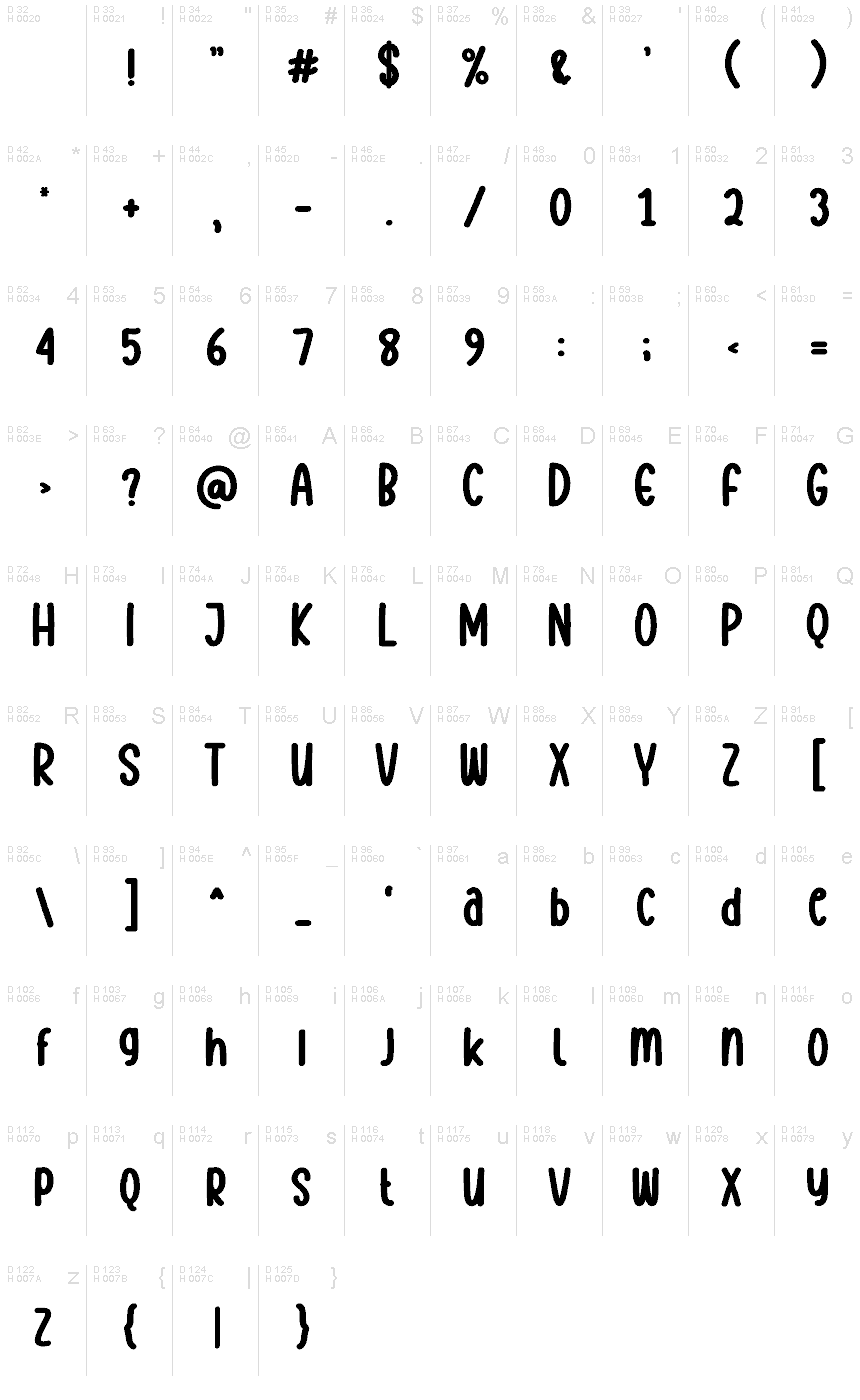
Bright Dreams
Bright Dreams font, by Scratchones, is a retro-inspired handwritten font. This friendly font promotes a casual feel with its condensed expressive characteres and whimsical style. It is mainly optimized to fit creative projects concerned with delivering non-formal messages.
\nSuitable usages of this free handcrafted typeface include posters, flyers, advertisements, digital media, social media design content alongside comics and kids-related applications. However, the author also recommends using it in ordinary texts and documents like letters or invitations where appropriate.